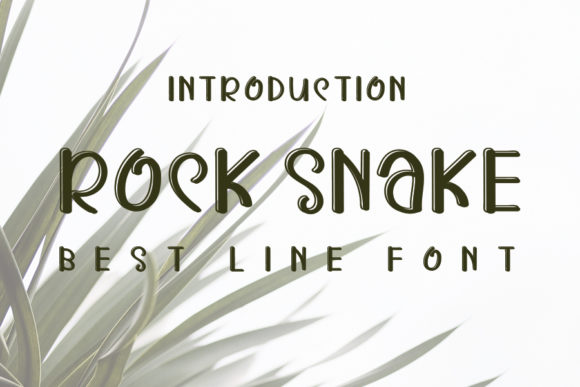
Prepare to be amazed by Rock Snake Font, the ultimate display font crafted to elevate your designs with a touch of joy and quirkiness. Let your creativity soar as you harness the power of this remarkable font to turn your ideas into captivating masterpieces. Its playful and distinctive characters are guaranteed to make your designs shine and leave a lasting impression.
With Rock Snake Font, you can effortlessly add a sprinkle of delight to your flyer designs, transforming them into visually stunning works of art. Its ability to capture attention and evoke emotions will ensure that your flyers stand out from the crowd and grab the attention of your target audience. From vibrant announcements to playful invitations, let Rock Snake Font be your secret weapon for creating flyers that resonate with your message and leave a lasting impact.
Beyond flyer design, Rock Snake Font is a versatile chameleon that effortlessly adapts to a wide range of creative projects. Whether you're crafting social media posts, designing eye-catching posters, or creating unique logos, this font will seamlessly blend with your vision and add a touch of whimsy and charm. Its versatility knows no bounds, making it the perfect choice for designers and artists seeking a font that can effortlessly transform their ideas into stunning realities.
Unleash your creativity and embark on a journey of artistic exploration with Rock Snake Font. Its playful nature and ability to evoke joy make it the perfect companion for projects that demand a touch of lightheartedness and fun. From playful greeting cards to captivating invitations, let Rock Snake Font be your artistic ally, bringing a smile to the faces of your audience with its charming and distinctive style.
With Rock Snake Font, you're not just downloading a font; you're inviting a world of creative possibilities into your design arsenal. Let its playful energy ignite your imagination and open up new avenues of artistic expression. Whether you're a seasoned designer or just starting your creative journey, Rock Snake Font is the perfect tool to add a dash of delight to your designs and leave your audience captivated by your creations.